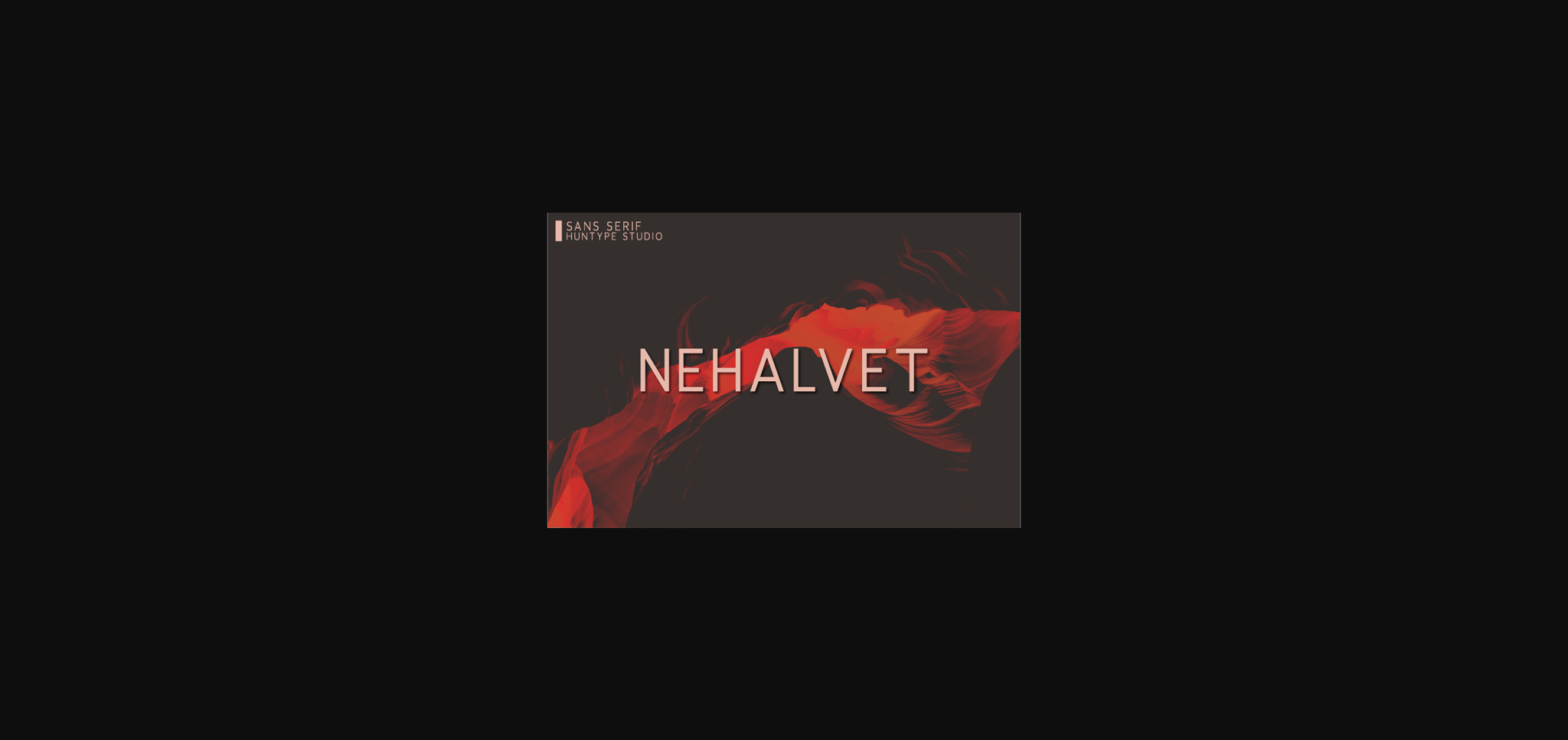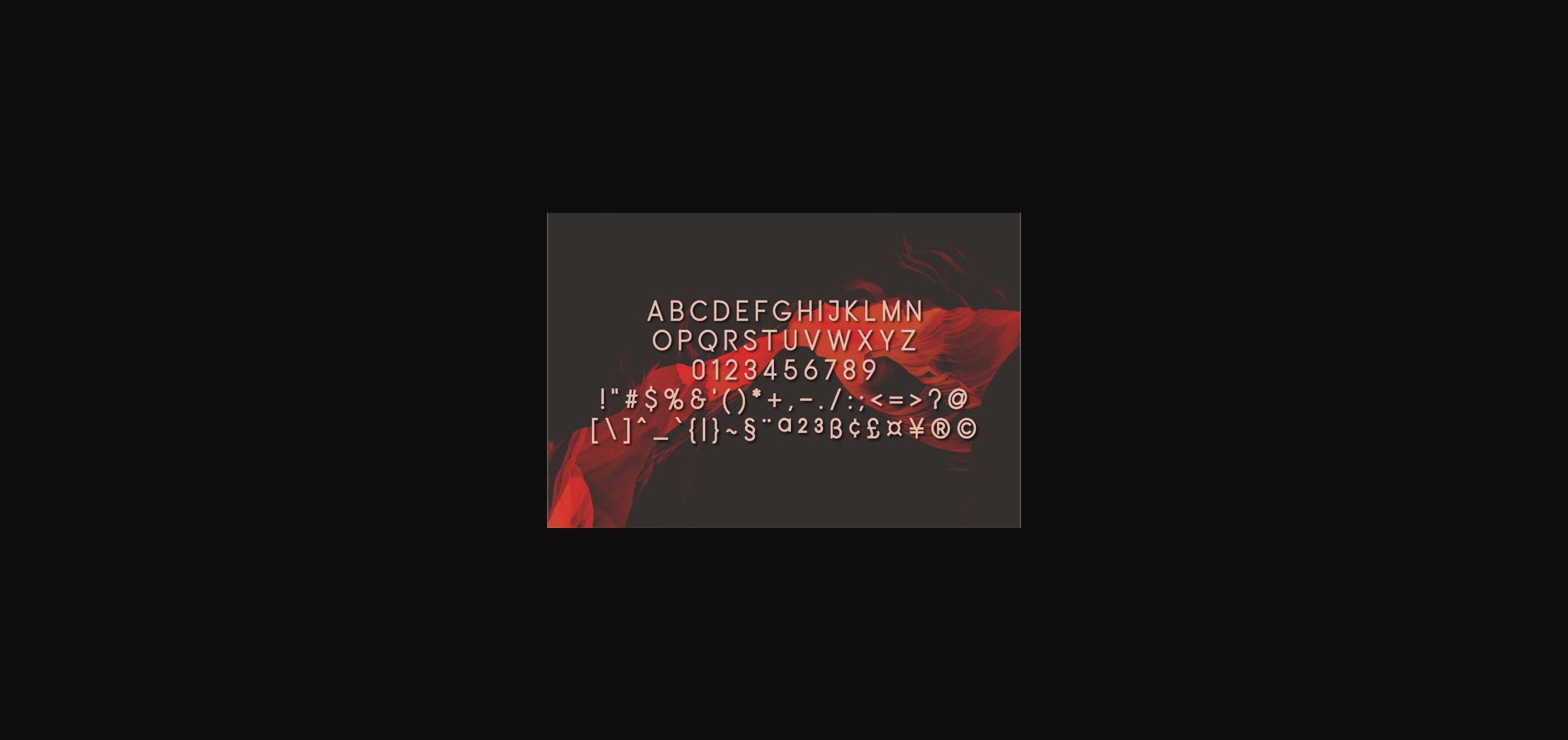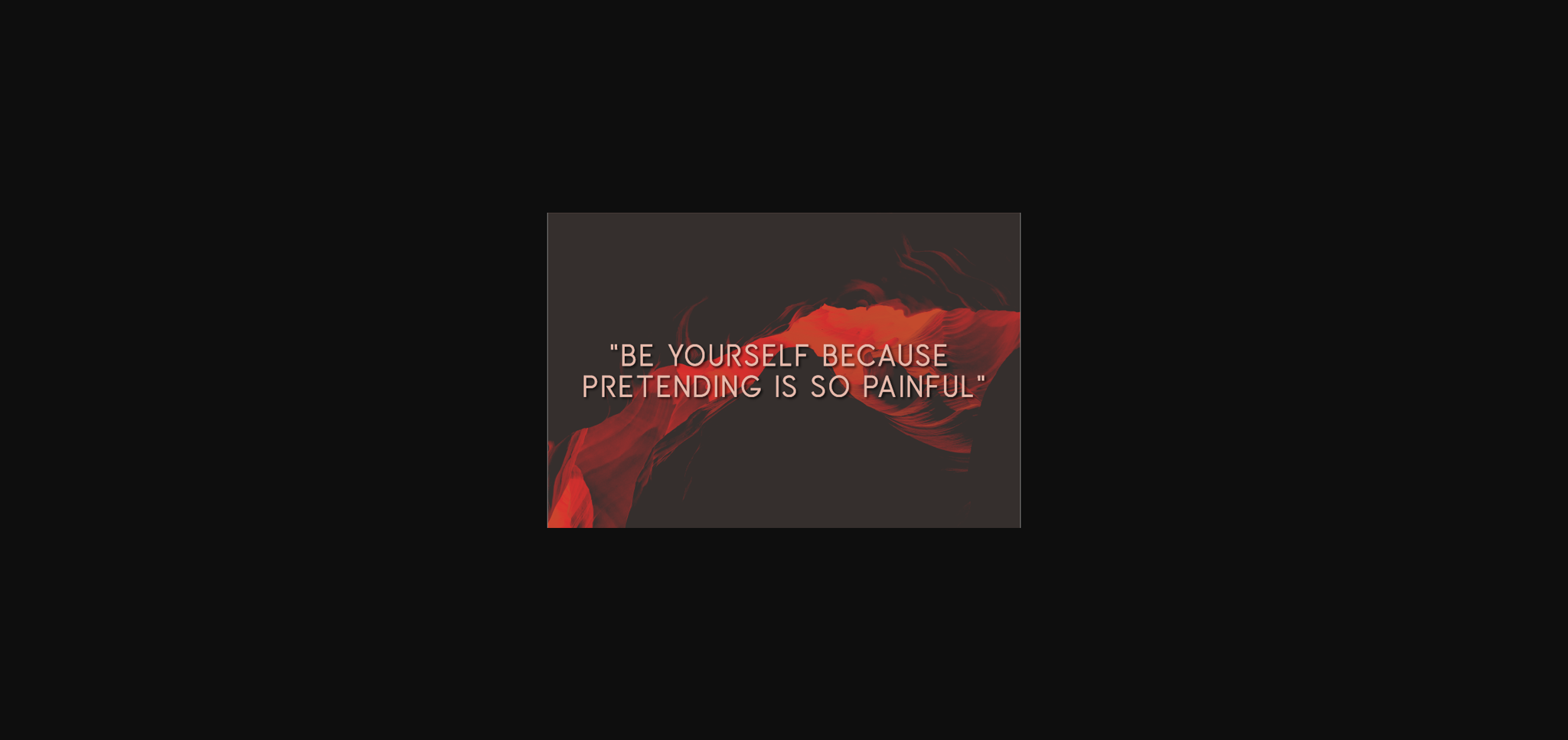
Nehalvet is a simple and authentic sans serif font. No matter the topic, this font will be an incredibly asset to your fonts’ library, as it has the potential to elevate any creation.